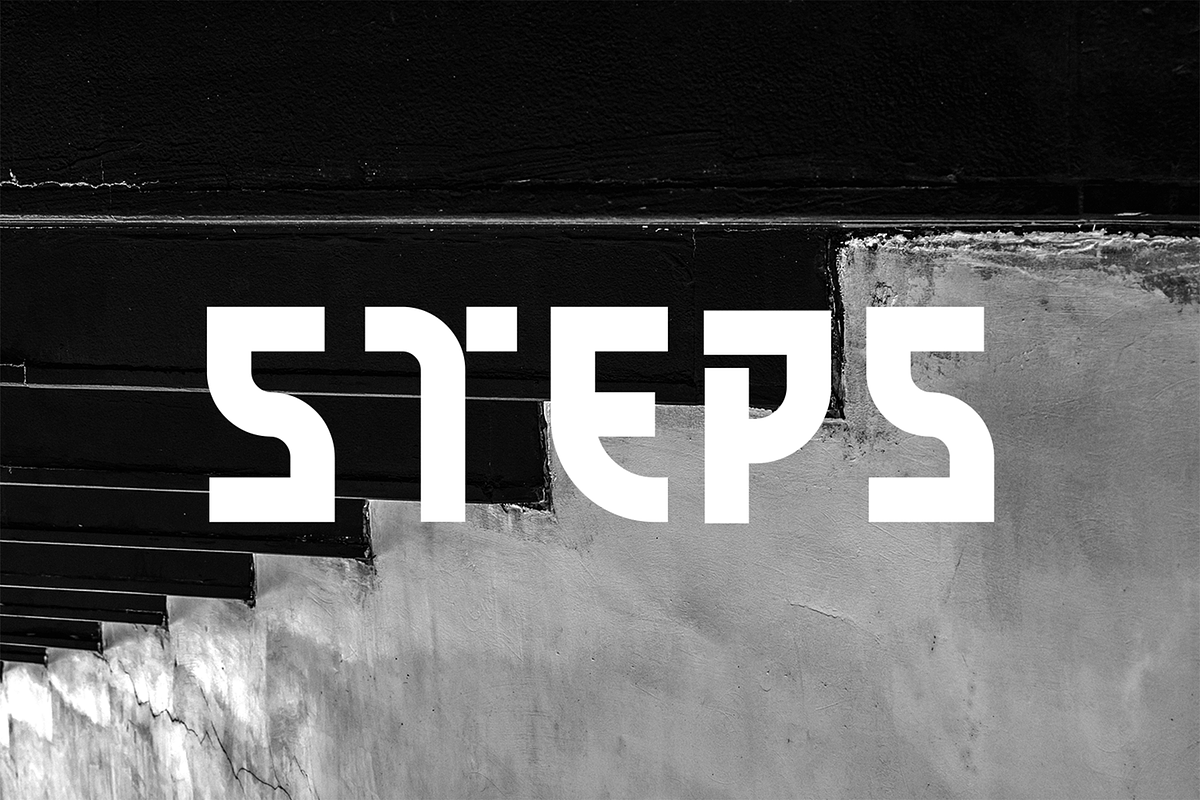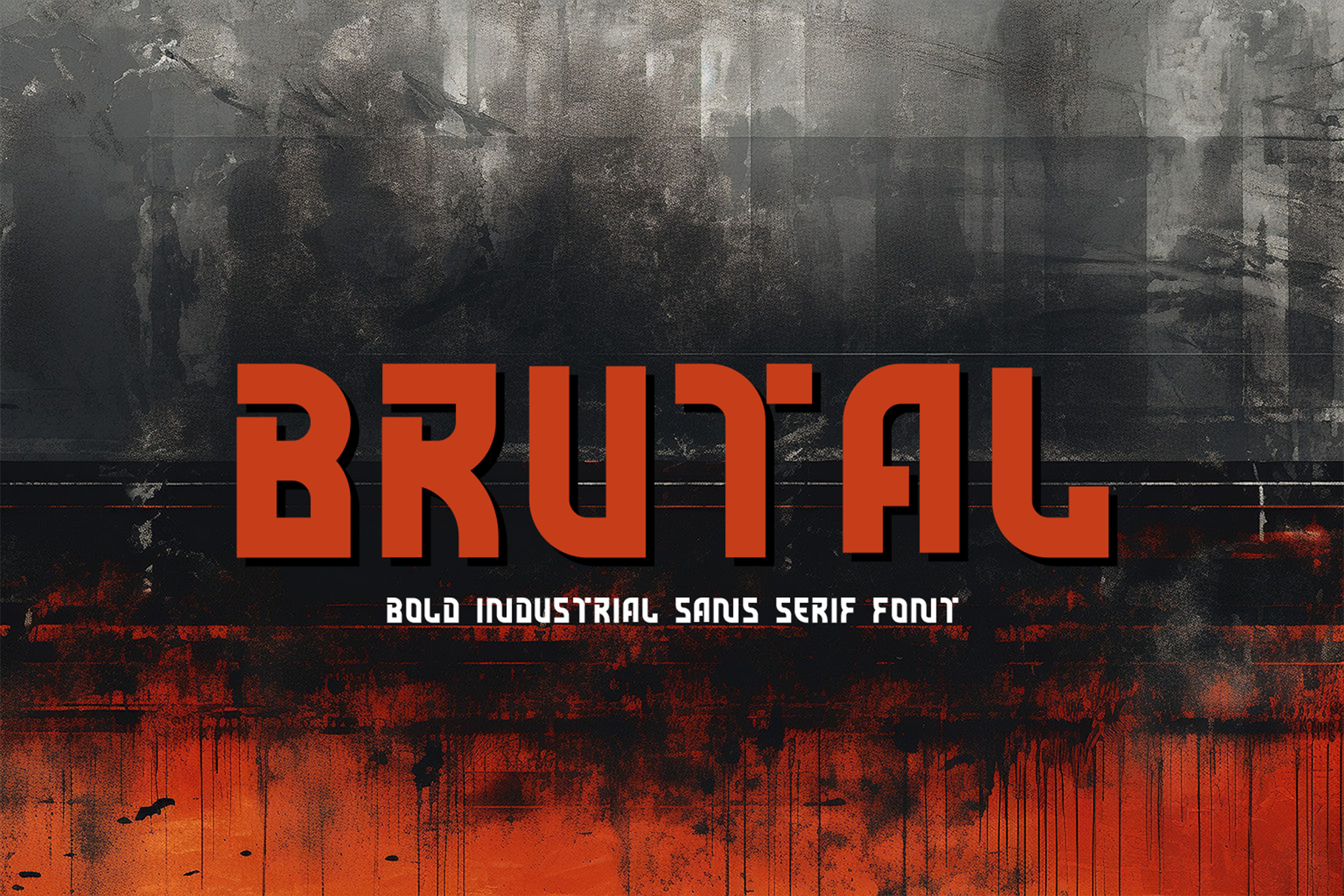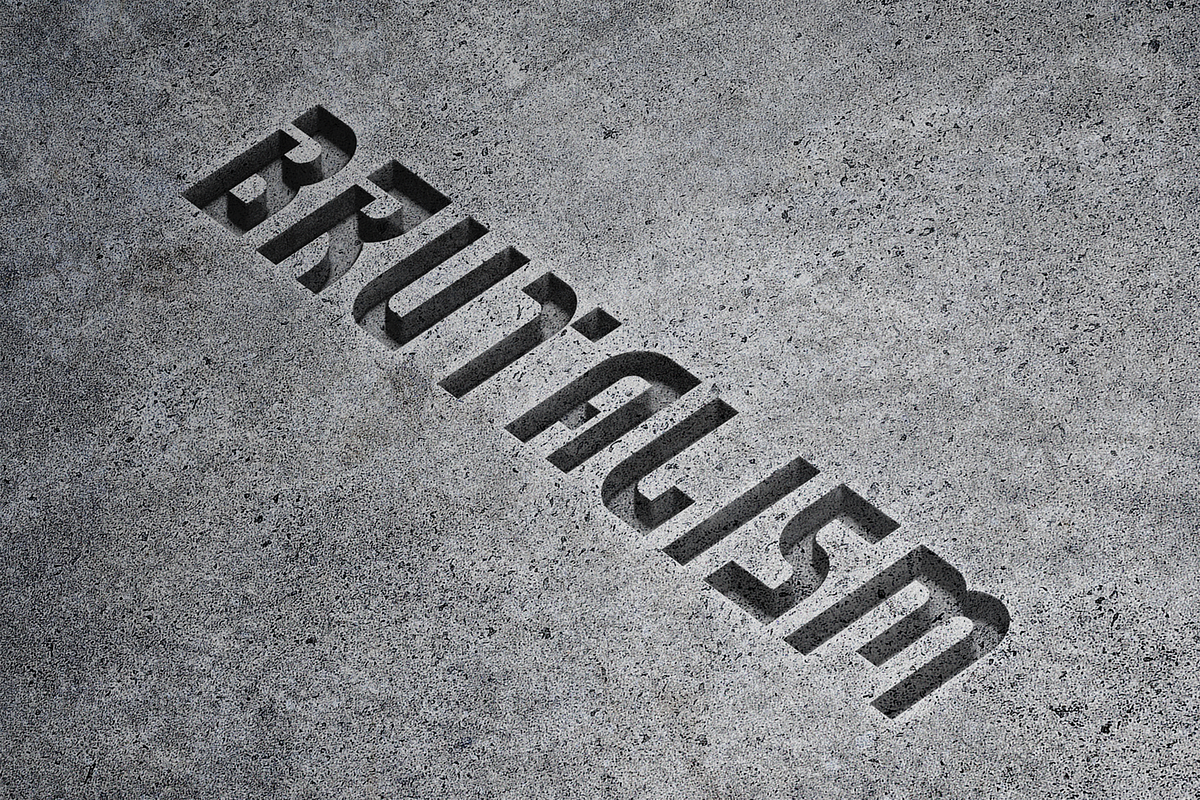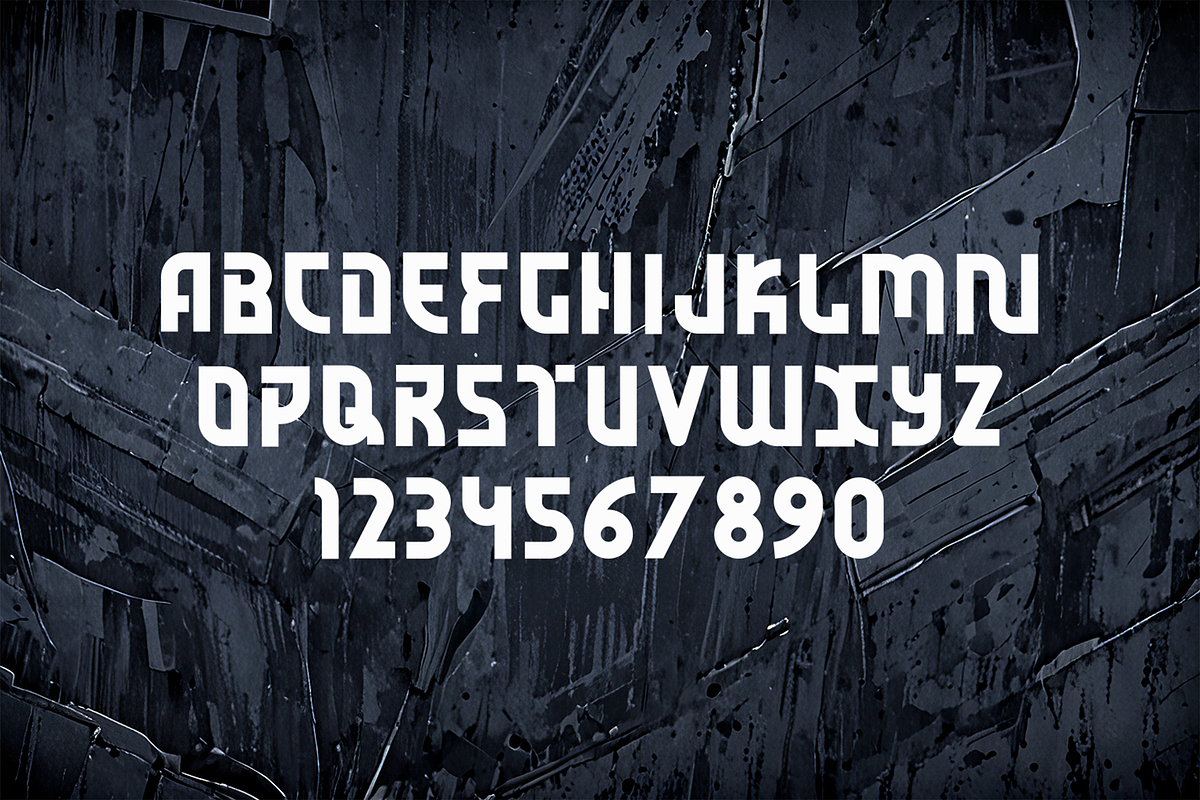
Brutal Sans Font
BrutalSans – Bold Industrial Sans Serif Font
BrutalSans is a high-impact, industrial-inspired display typeface built for raw power and commanding presence. Combining sharp geometric angles with heavy, brutalist block proportions, this font commands immediate attention and gives your designs an edgy, futuristic, and unyielding aesthetic.
Ideal Uses & Applications
Branding & Logos: Perfect for tech startups, gaming studios, streetwear apparel brands, and industrial equipment companies.
Posters & Covers: Outstanding for event flyers, music album artwork, movie titles, sci-fi posters, and esports branding.
UI & Digital Graphics: Great for HUD displays, video game interfaces, web headers, and promotional banners requiring an aggressive visual tone.